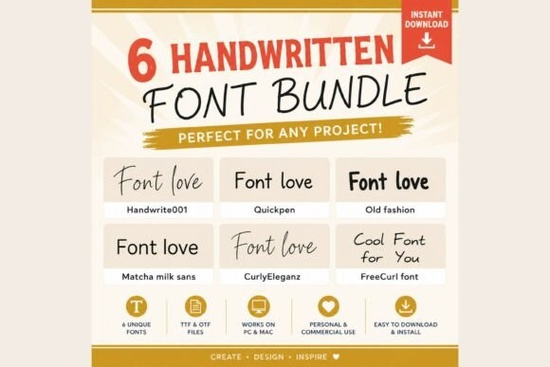
If you’ve been searching for a way to add warmth and personality to your designs without spending hours hand-lettering everything, the Handwritten Bundle Font might be exactly what you need. It’s not just one font it’s six unique handwritten styles that feel natural, clean, and ready to use across all kinds of projects. Whether you’re designing wedding invites, custom stickers, or branding for your small shop, these fonts bring an authentic human touch that digital typefaces often miss.
What kinds of projects work best with this bundle?
This collection was made with real-world use in mind. You’ll find each font works smoothly for:
- Logo design – especially if you want something friendly and approachable
- Crafting with Cricut or Silhouette – clean lines cut well and scale nicely
- Social media graphics – adds charm to quotes, announcements, or product promos
- T-shirts and print-on-demand items – readable at different sizes and on varied backgrounds
- Planners, journals, and stickers – feels personal, like it was written just for the user
Small business owners often tell us they use handwritten fonts to stand out in crowded feeds or marketplaces. A little imperfection goes a long way in making things feel genuine.
Each font includes basic punctuation and numerals, plus enough alternate characters and ligatures to keep things looking natural. You don’t need to be a typography expert to make them look good they’re designed to work right out of the box.
Which font in the bundle should I try first?
Start with the one labeled “Daily Script” it’s the most versatile. Clean letterforms, subtle bounce, and excellent readability even at smaller sizes. Great for body text in invitations or layered under photos in social posts.
If you’re going for something bolder, “Inkwell Casual” has more character variation and works beautifully as a headline or logo font. Pair either with a simple sans-serif for contrast, and you’ve got a professional combo in minutes.
Don’t try to use all six fonts at once. Pick one project maybe a set of Instagram story templates or a printable quote for your Etsy shop and test just two fonts from the bundle. See how they pair. Adjust sizing and spacing until it feels balanced.
Pro tip: handwritten fonts often look best when slightly off-grid. Try nudging words up or down by a few pixels, or rotating letters very subtly (1-2 degrees) to mimic how real handwriting drifts. It makes a big difference in authenticity.